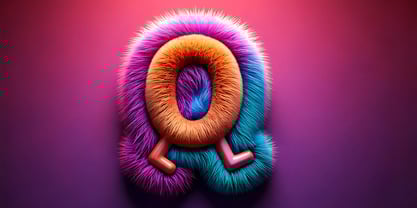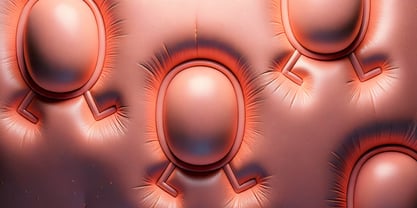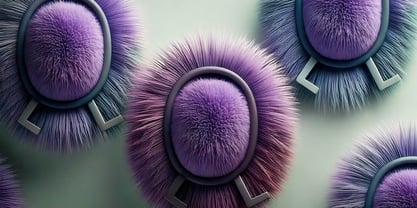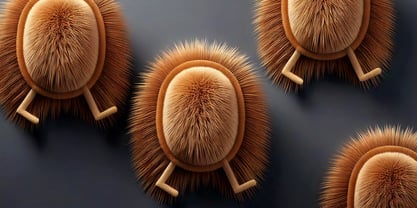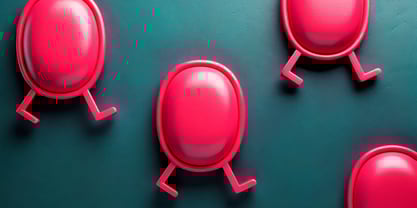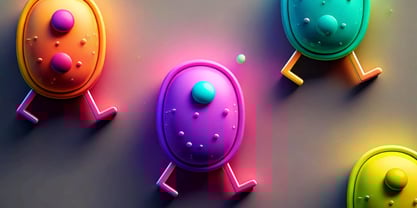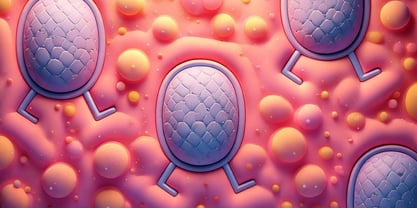
Ranchstyle
by Ampersand Type Foundry
The Ranchstyle Font Family was designed by Monica Maccaux and published by Ampersand Type Foundry. Ranchstyle contains 5 styles and family package options. More about this family
Based off of research into Nevada cattle branding irons of the 19th century, Ranchstyle takes the vernacular from rancher’s brands of the old west, digitizes it, and brings it into the contemporary world as a vivacious spunky typeface. The letterforms mimic bent metal and have the fluidity that follows such a material.
Ampersand Type Foundry contains a collection of experimental typefaces designed by Monica Maccaux. Focusing on custom, quirky type projects exploring the idea of variables and multiples, projects take on experimental ideation with unexpected outcomes. Many of these typeface ideas came from my time in grad school at Otis College of Art & Design, in Los Angeles, CA. Inspiration was found working with various type designers such as Sibylle Hagmann, Greg Lindy, Hansje Van Halem, and Peter Bil’ak and later teaming up with Rod Cavazos at PSY/OPS Type foundry.